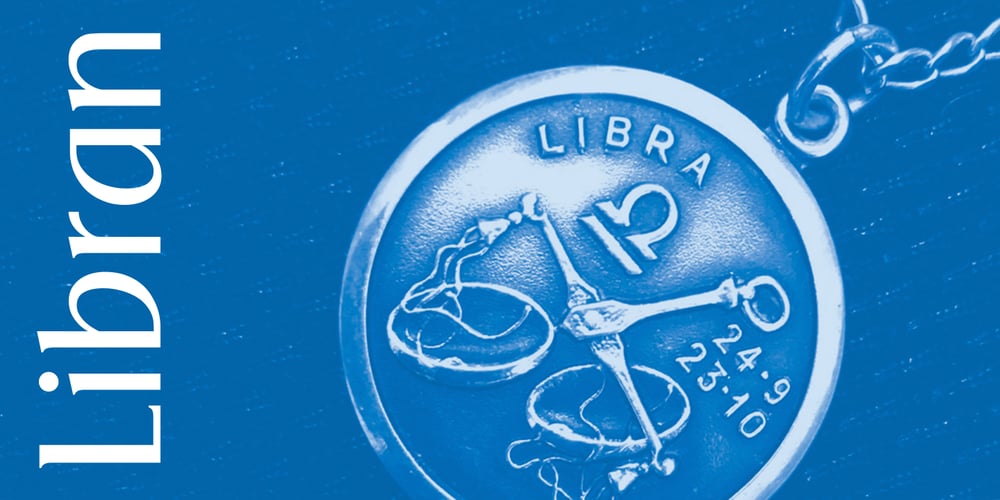
Libran Font Family was designed by Keith Morris and published by Bean & Morris. Libran contains 4 styles and family package options. The Libran font family consists of Libran Regular, Libran Italic, Libran Antique and Libran Small Caps. The broad open counters make for easy reading with a touch of classic roman clarity. The diminutive serifs add a suggestion of the hand crafted origins without obstructing Its clean, contemporary lines. Libran’s generous x-height and short ascenders have been carefully proportioned to maximise reproduction qualities.